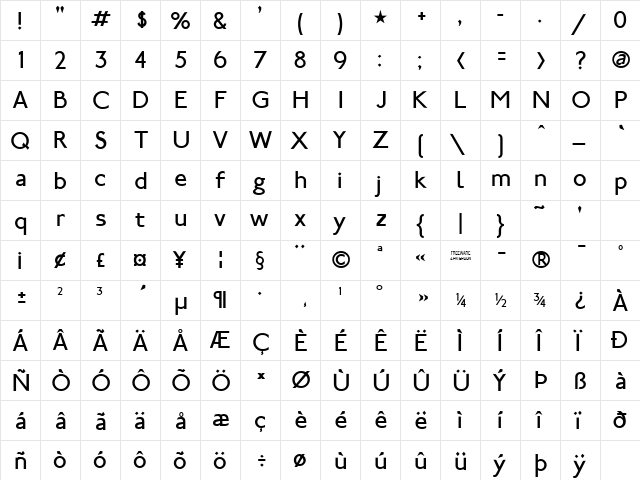
Subway - London Regular
Subway - London is a composed and adaptable typeface that performs quietly and consistently across a wide range of design contexts.